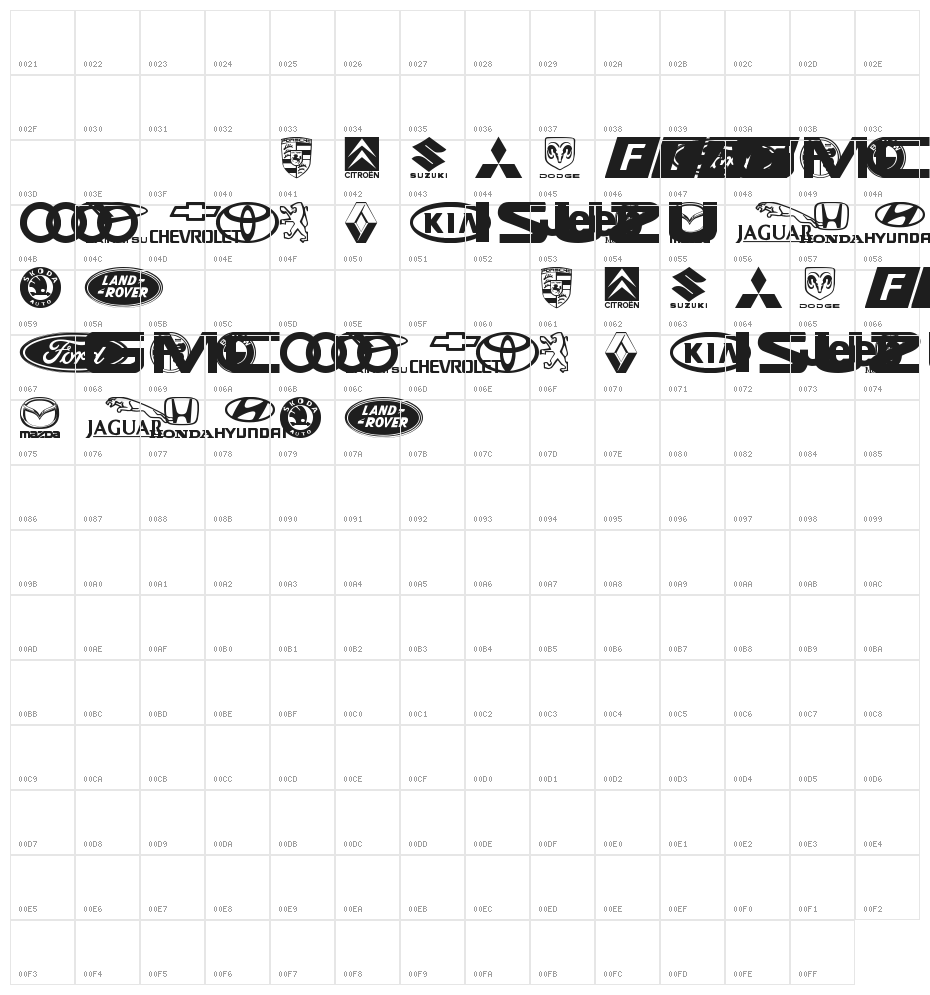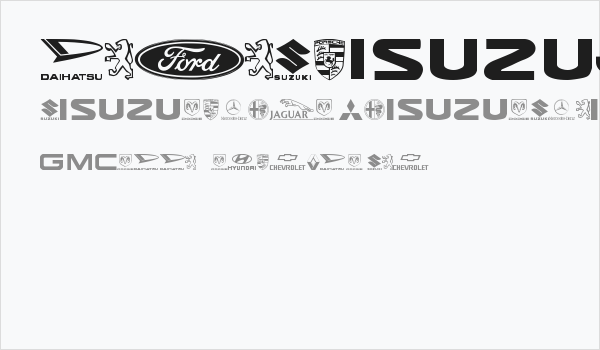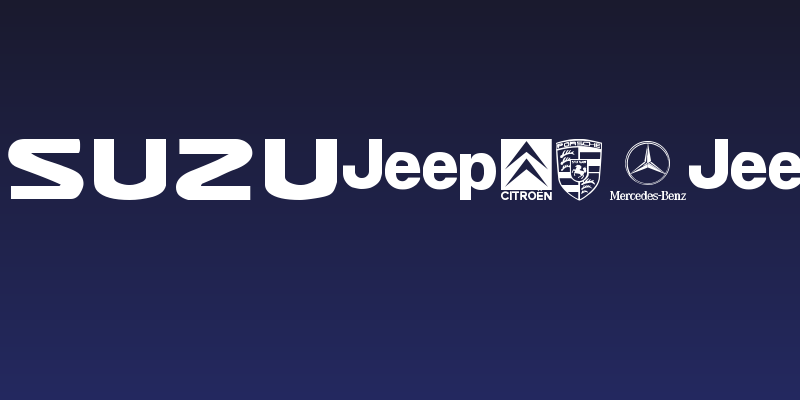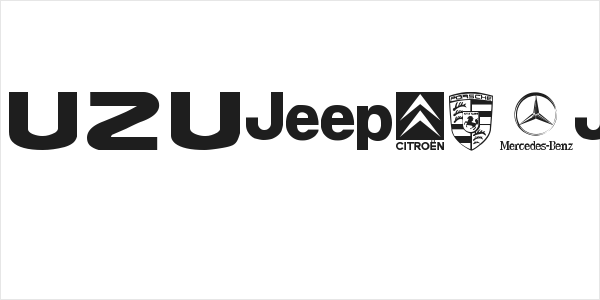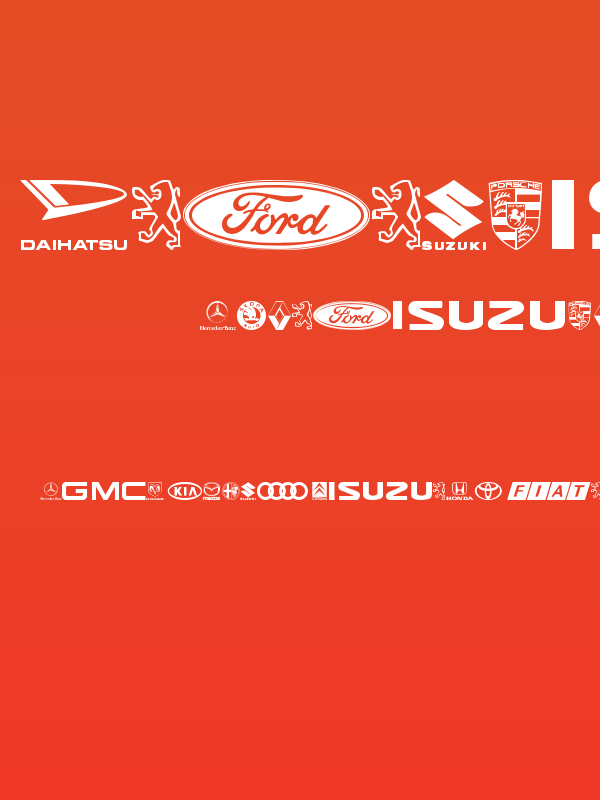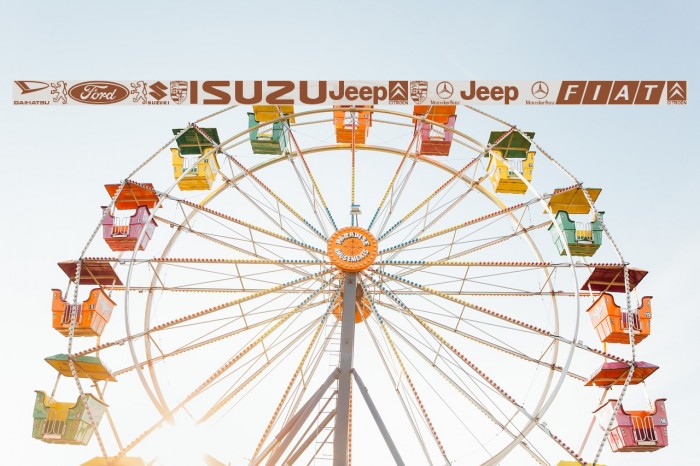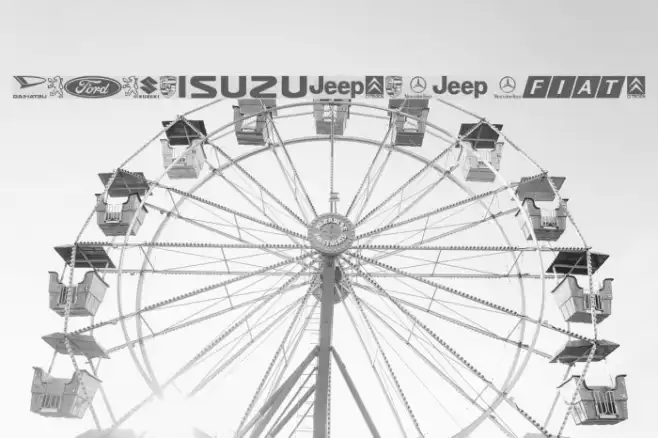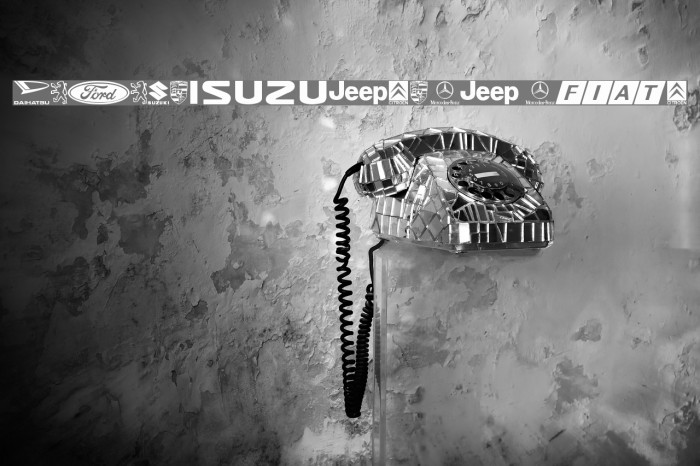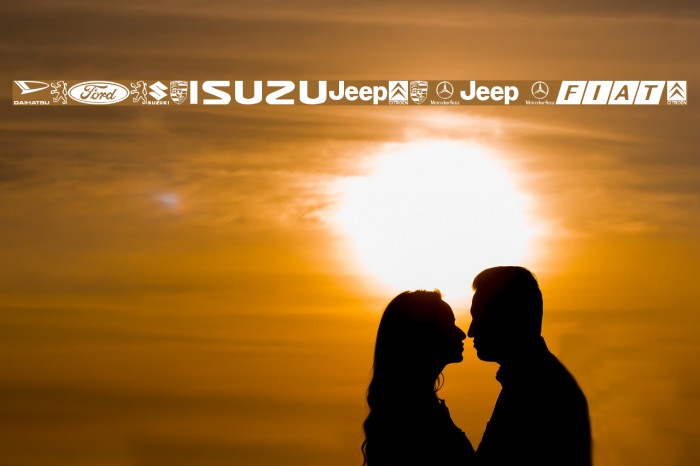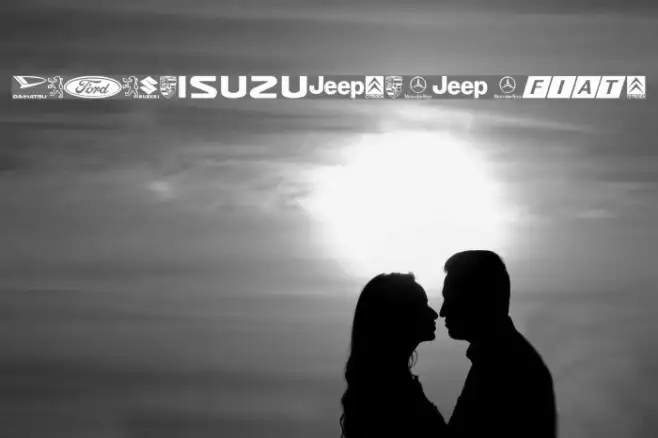
logocarsbats tfb Font
logocarsbats tfb Description
A decorative dingbat font featuring various car manufacturer logos and emblems, each glyph representing a different automotive brand symbol in black and white.
| Overall Style | Decorative, Thematic |
| Use Case | Logos, Decorative elements, Themed graphics |
| Proposed Projects | Automotive-themed posters, car show flyers, branding mockups, educational materials about cars, novelty merchandise. |